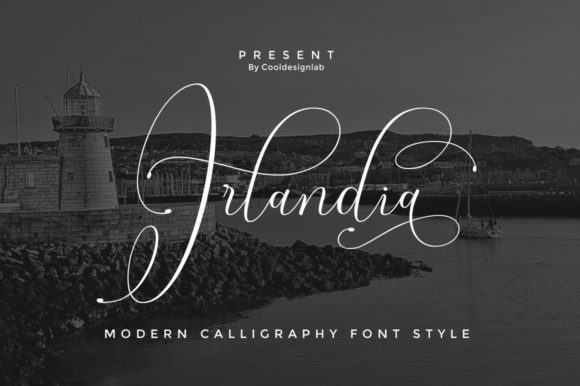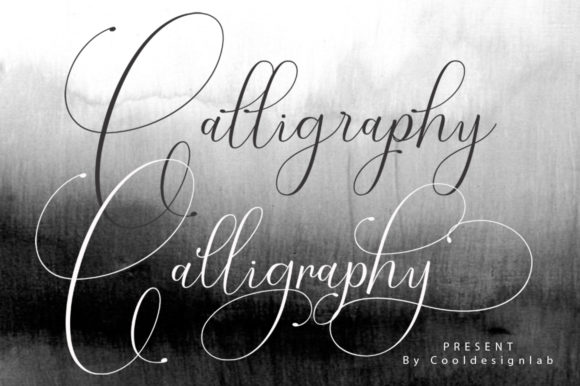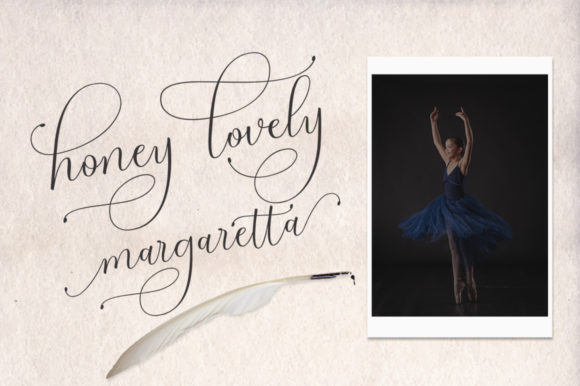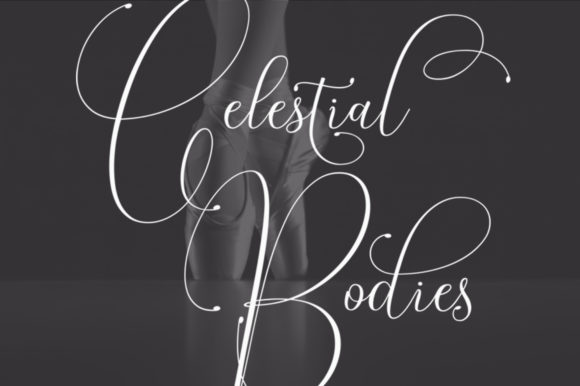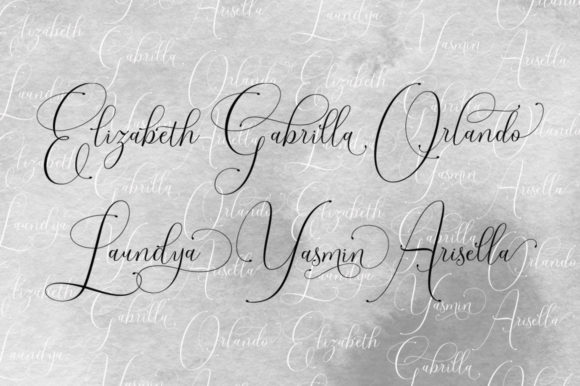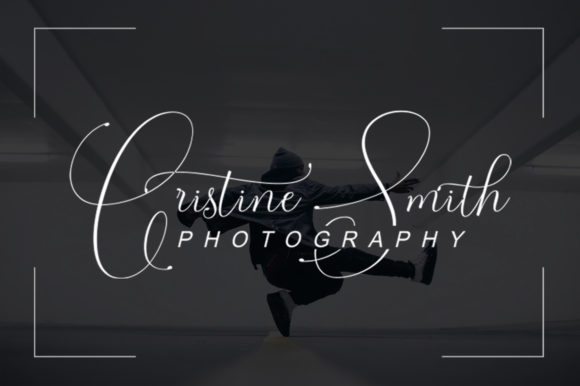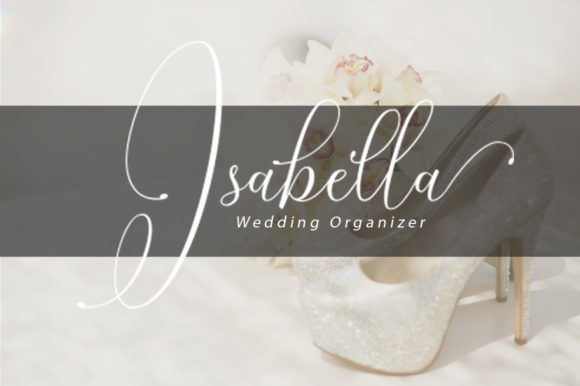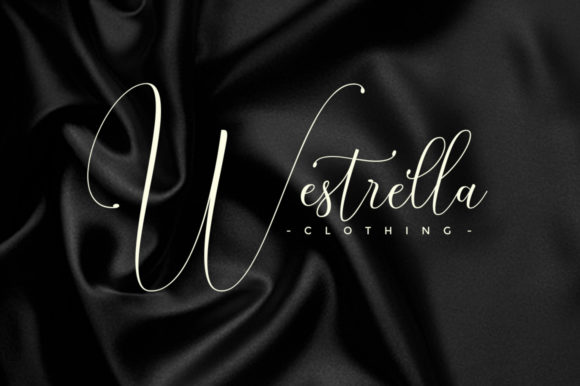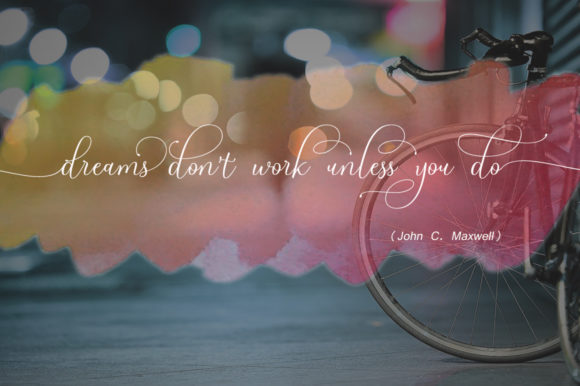
Irlandia Script Font
About Irlandia Script Font
The Irlandia is a modern and calligraphy font. It’s amazing swashes will add an elegant and feminine feel to your designs.